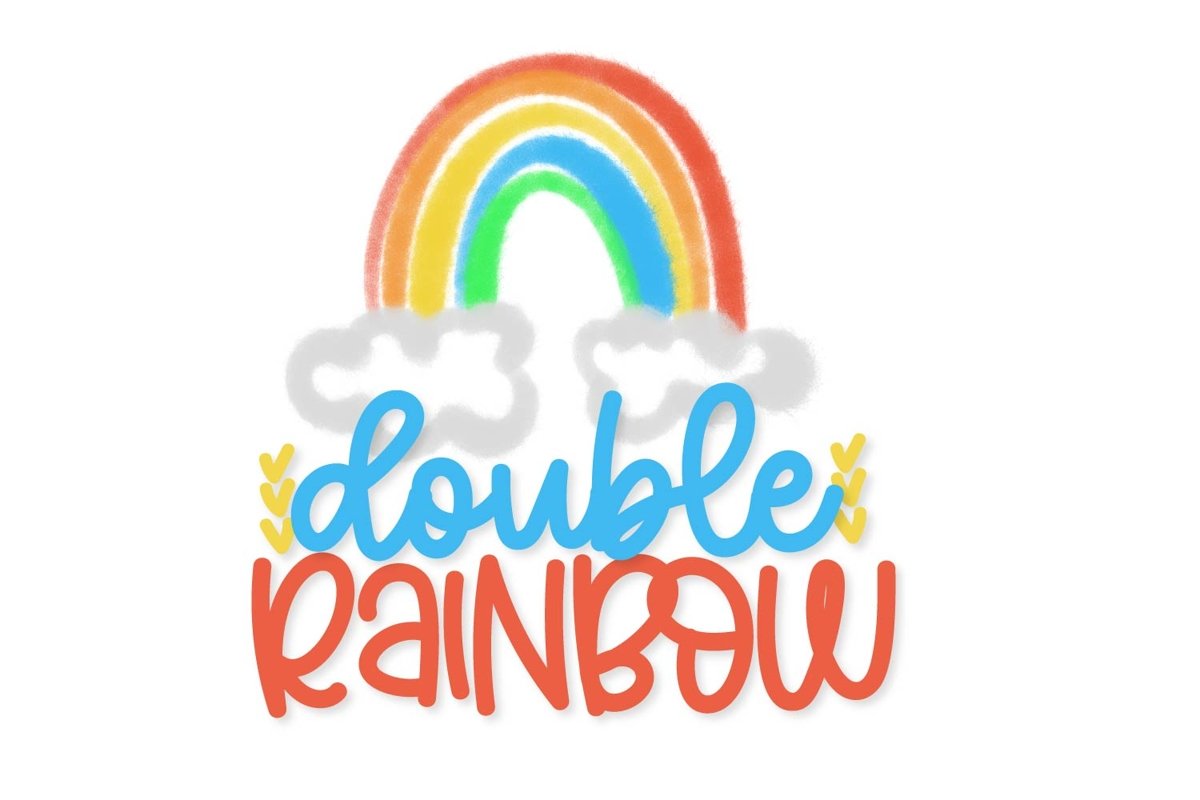
Double Rainbow - A Font Duo with Doodle Extras
Includes a script and print font, in OTF TTF - and then a "doodle" bonus with 26 little doodads in OTF & TTF as well.